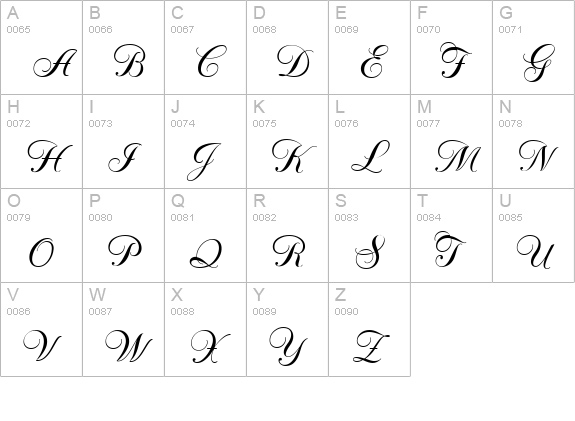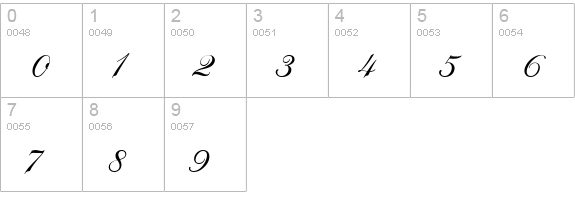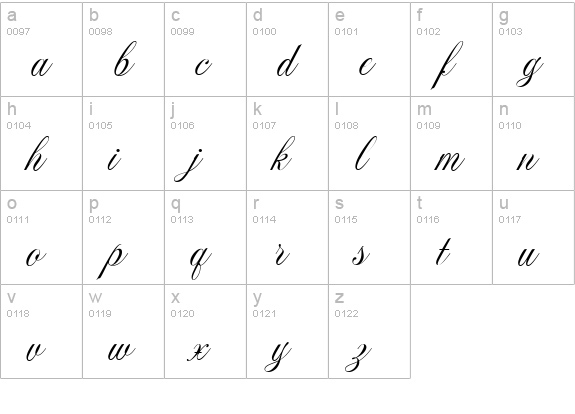
NotnorvalHmk Font Details
Introducing NotnorvalHmk font - a versatile and stylish typeface that brings a touch of elegance to any design project. With its sleek lines and modern aesthetic, NotnorvalHmk is perfect for creating eye-catching headlines, logos, and branding materials. This unique font offers a range of weights and styles, making it incredibly versatile for various design purposes. Whether you're working on a website, marketing materials, or print projects, NotnorvalHmk is sure to make a statement. The best part? NotnorvalHmk is available for free download at FontsMarket.com. Simply visit the website to get your hands on this stunning font and elevate your design projects to the next level. Don't miss out on the opportunity to add NotnorvalHmk to your font collection today!